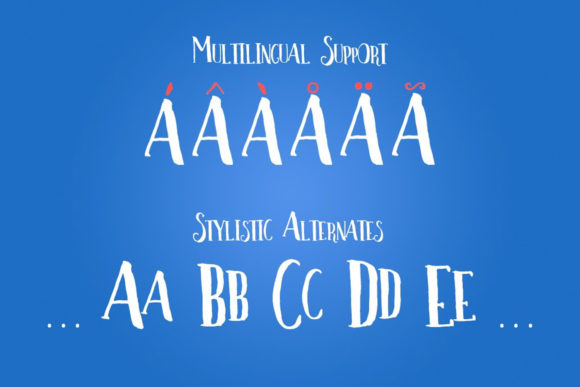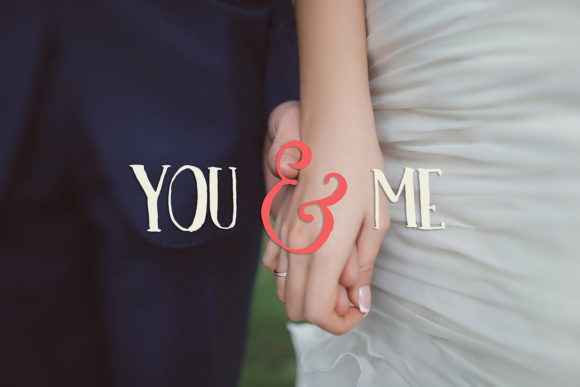
Melissa Font
db-ku.com - Script & Handwritten -- This is a wonderful font drawn by hand and with love! Melissa can be used for fashion, Invitations, business cards, design and much more